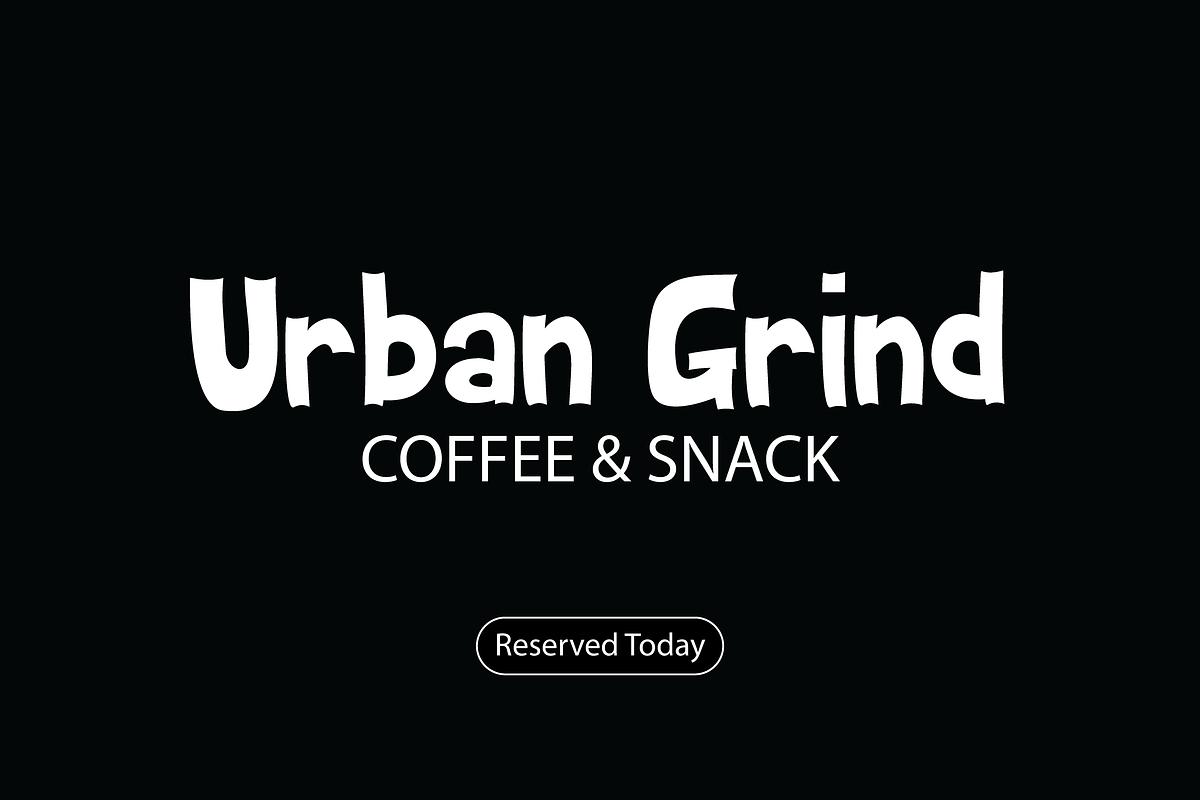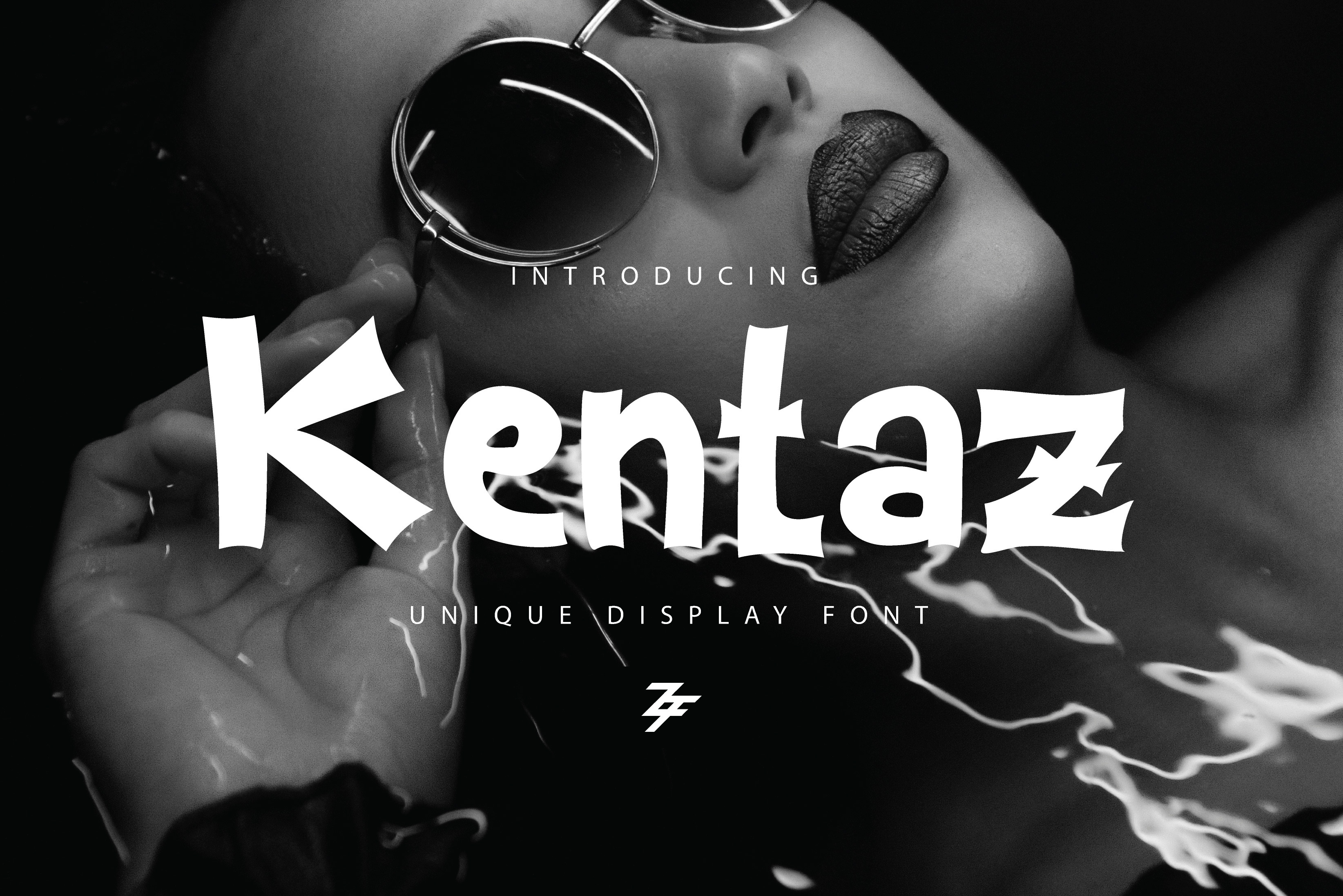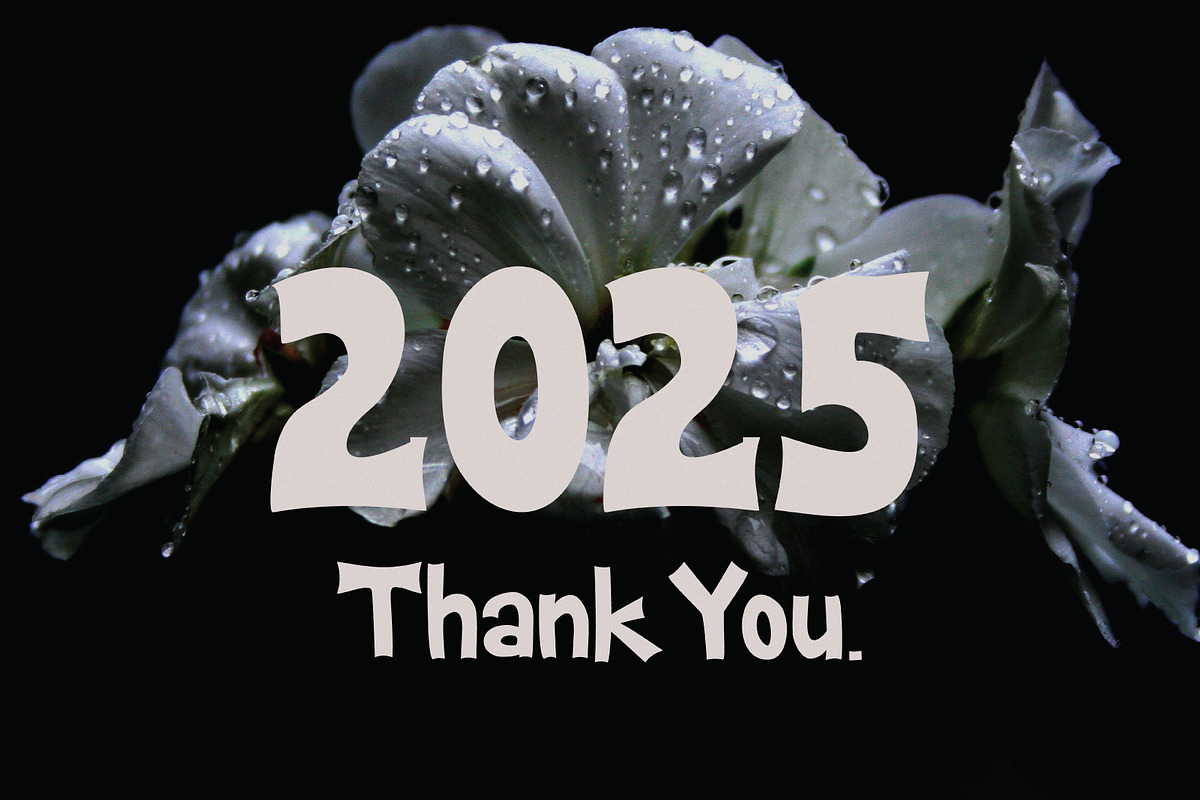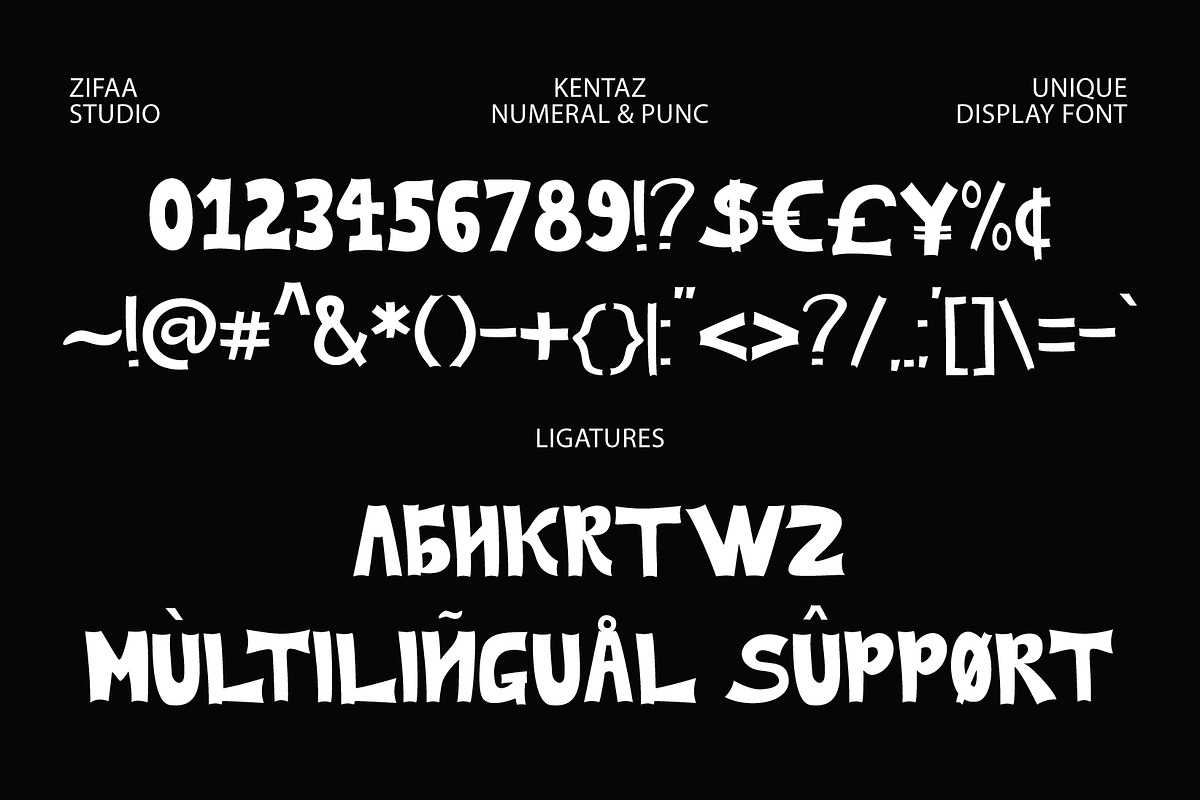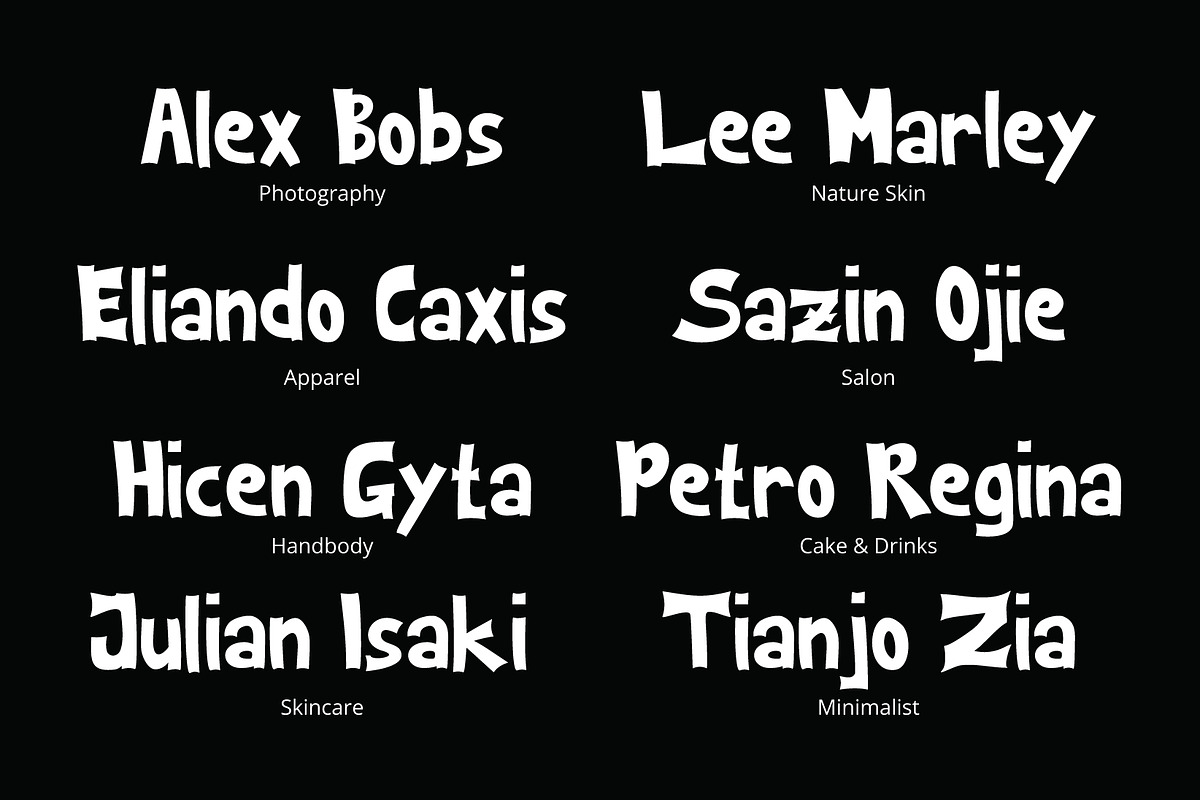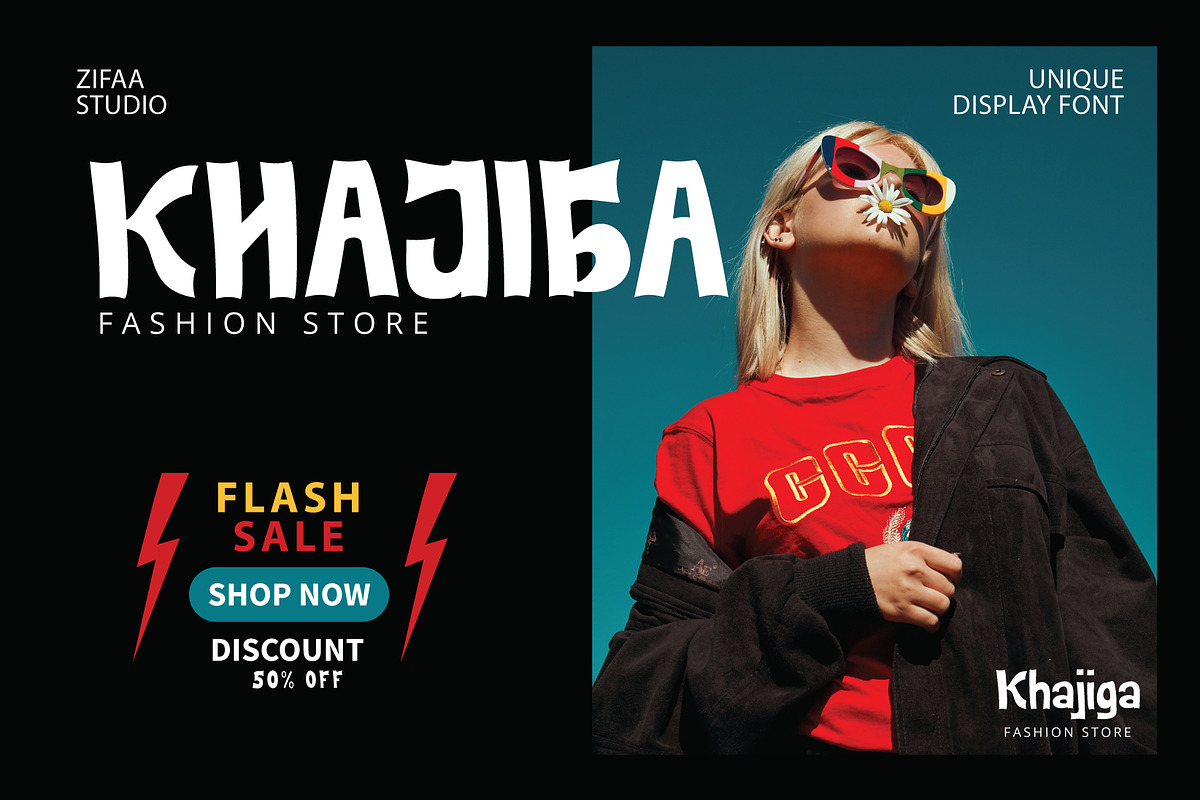
Kentaz Unique Display Font
The font featured in this image is called Kentaz, and is the work of Zifaa Studio.
Kentaz is a unique display font with a wavy, playful, and asymmetrical letter style, giving it an expressive and characterful feel. Its irregular yet clearly legible letterforms make it suitable for both creative and casual projects.
Kentaz Font Characteristics:
Style: Display / Unique / Casual
Letterform: Hand-drawn appearance with distorted elements that make the letters appear to move or "live." Impression: Cute, fun, energetic, and expressive. Legibility: Despite its asymmetrical shape, each character remains easily recognizable and readable.
Suitable for: Children's book titles, Creative event posters, T-shirt designs, Playful product branding, Fun social media content, Comics or illustrations.